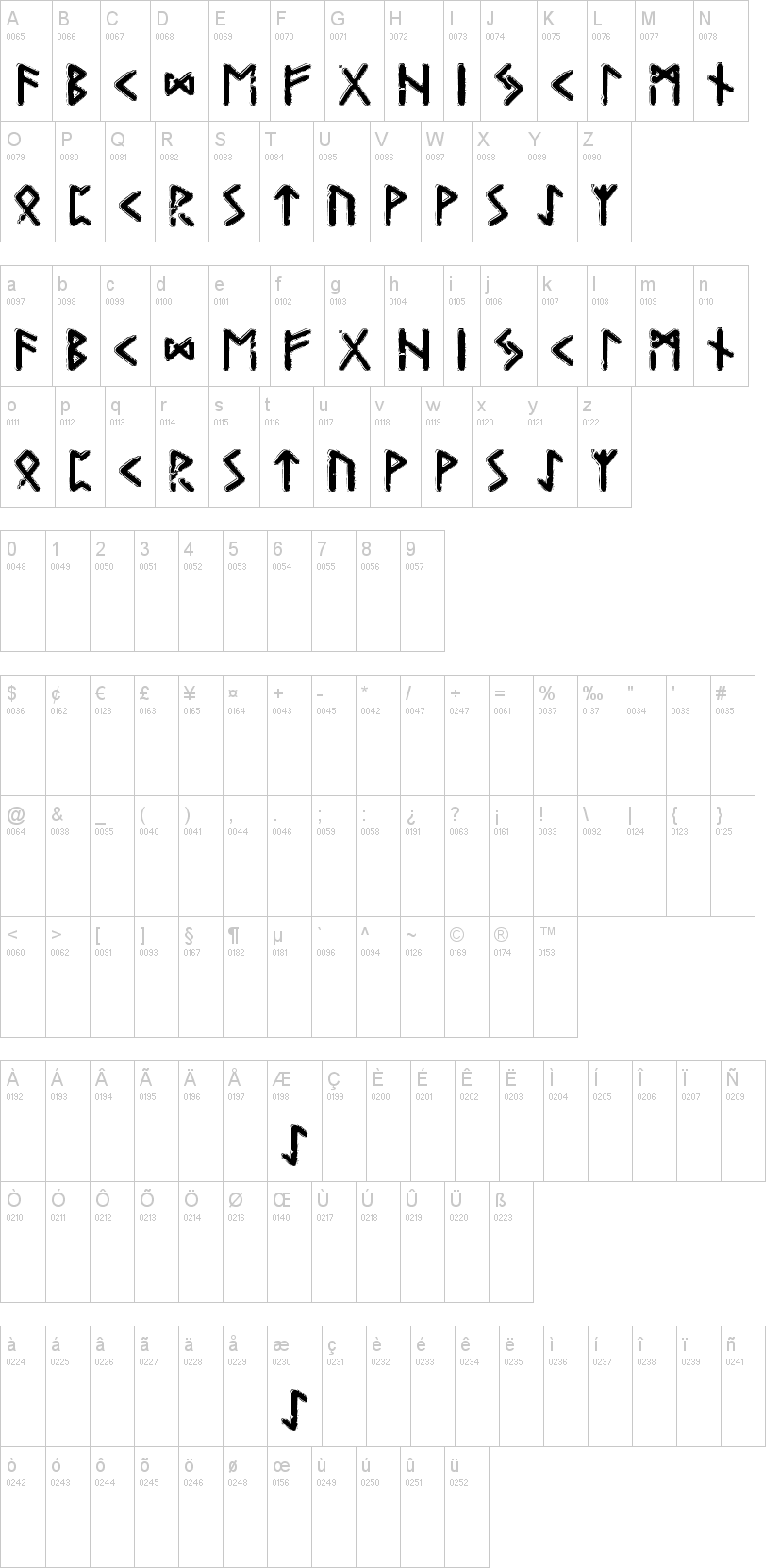
Note of the authorGunfjaun Runic is a variant of Elder Futhark. It is named after Gunfjaun, one of the sons of Tjelvar, who was the legendary founder of Gotland. Gotland is an island in the Baltic Sea, where the Kylver Stone was found, on which featured the Elder Futharl rune script.